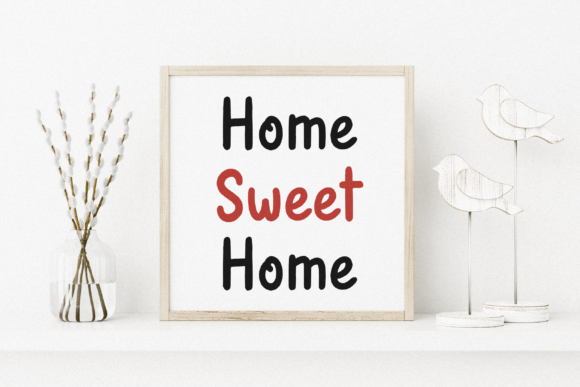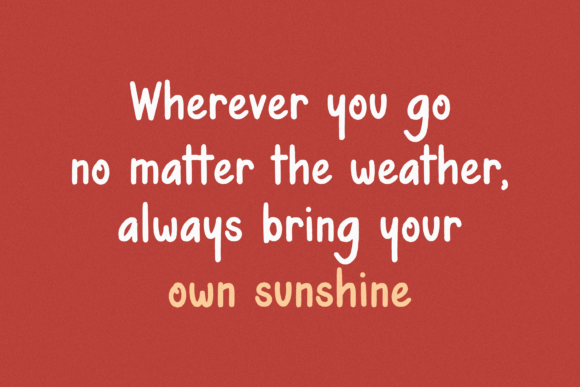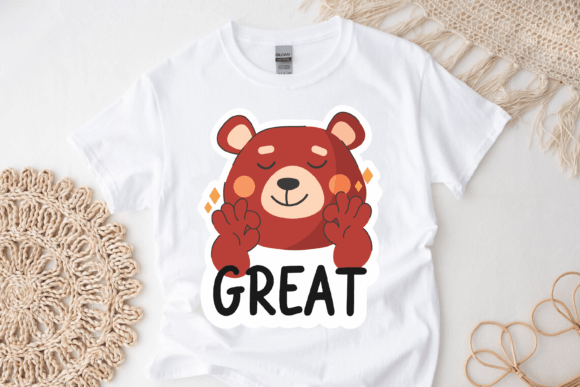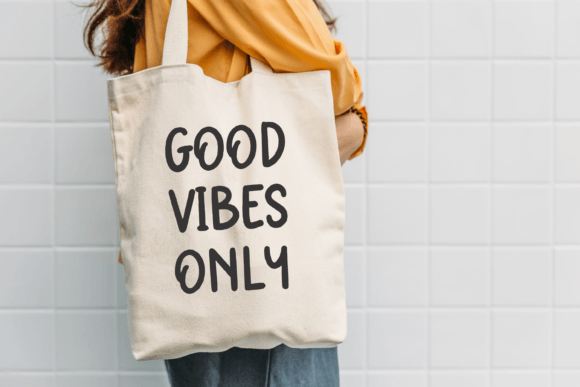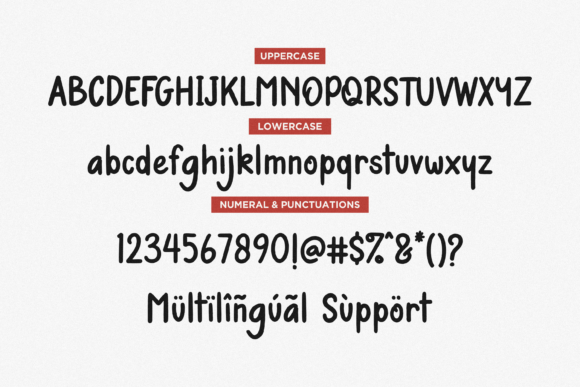
Unleashing Imagination: The Joy of Kidsland Avenue Font
Have you ever been brainstorming a creative project, and suddenly, a spark of inspiration strikes? Maybe it’s a quirky idea for a logo, or a whimsical title for a children’s book. Whatever it is, it’s that moment when everything comes together, and you know exactly what you want to create. For designers, these moments are what make our jobs so rewarding.
That’s where Kidsland Avenue Font comes in – a fun display font designed to bring your most imaginative ideas to life. Perfect for product packaging, branding projects, magazines, social media, weddings, or just adding a playful touch to your designs, Kidsland Avenue Font is the ultimate creative companion. Its unique charm makes it a valuable addition to any designer’s toolkit, allowing you to express your creativity and bring joy to your audience.
Kidsland Avenue Font Key Features
- Font Family: Kidsland Avenue Font
- Unique Characteristics: A playful, child-friendly font with rounded edges and a bouncy feel, perfect for children’s books, educational materials, and websites targeting young audiences.
Designer Review: Kidsland Avenue Font
Overall, I think Kidsland Avenue Font is a charming and playful typeface. Here are some things that I think work well:
- ✨ Its friendly and approachable nature makes it perfect for children’s products and educational materials.
- ✨ The font’s rounded edges and soft lines give it a modern and whimsical feel.
- ✨ The font’s legibility is excellent, making it easy to read even at small font sizes.
However, there are some limitations that I think the font has:
- ⚠️ The font may not be suitable for formal or professional applications, as it can come across as too playful or childish.
- ⚠️ Some characters, such as the lowercase ‘a’ and ‘g’, can be difficult to distinguish from each other, which may cause readability issues in certain contexts.
Overall, I think Kidsland Avenue Font is a great choice for projects that require a friendly and approachable tone. While it may not be suitable for all applications, it’s a versatile and well-designed font that can add a lot of personality to your designs.
Kidsland Avenue Font is perfect for:
- Children’s books and educational materials.
- Playful website designs and landing pages.
- Fun and colorful social media graphics.
- Party invitations and event promotions.